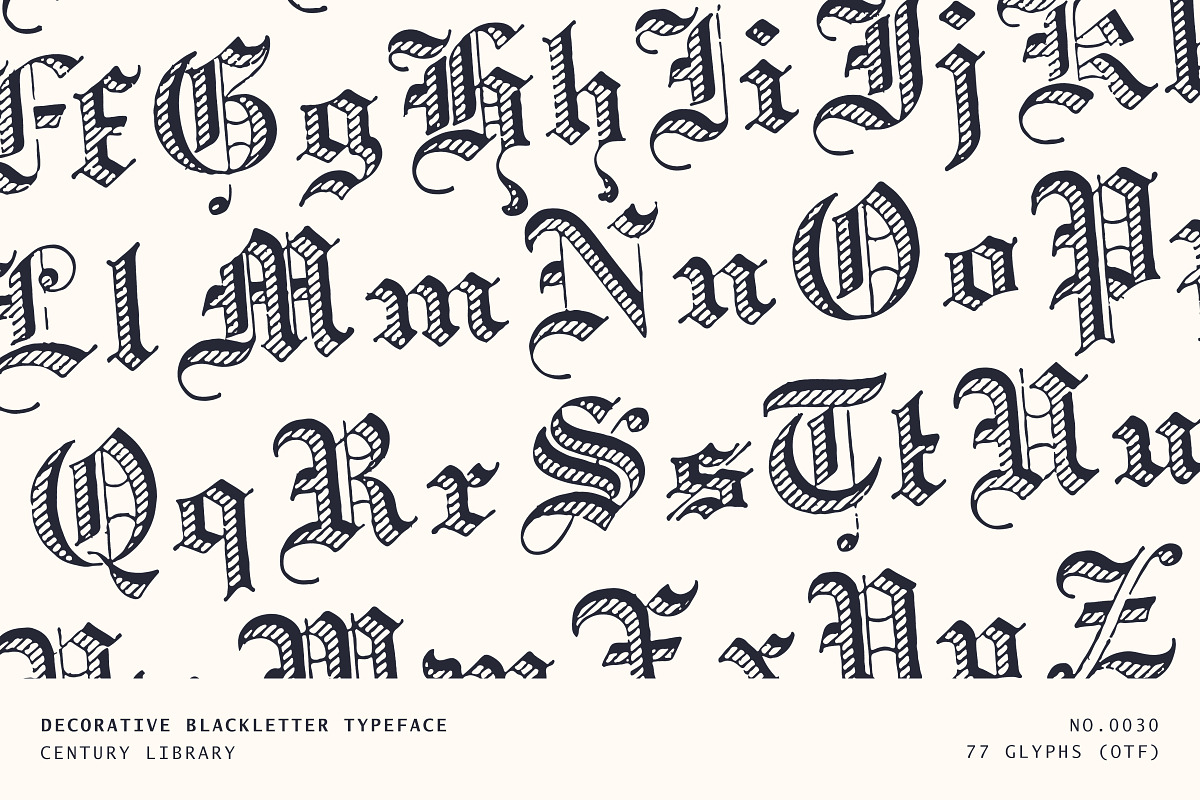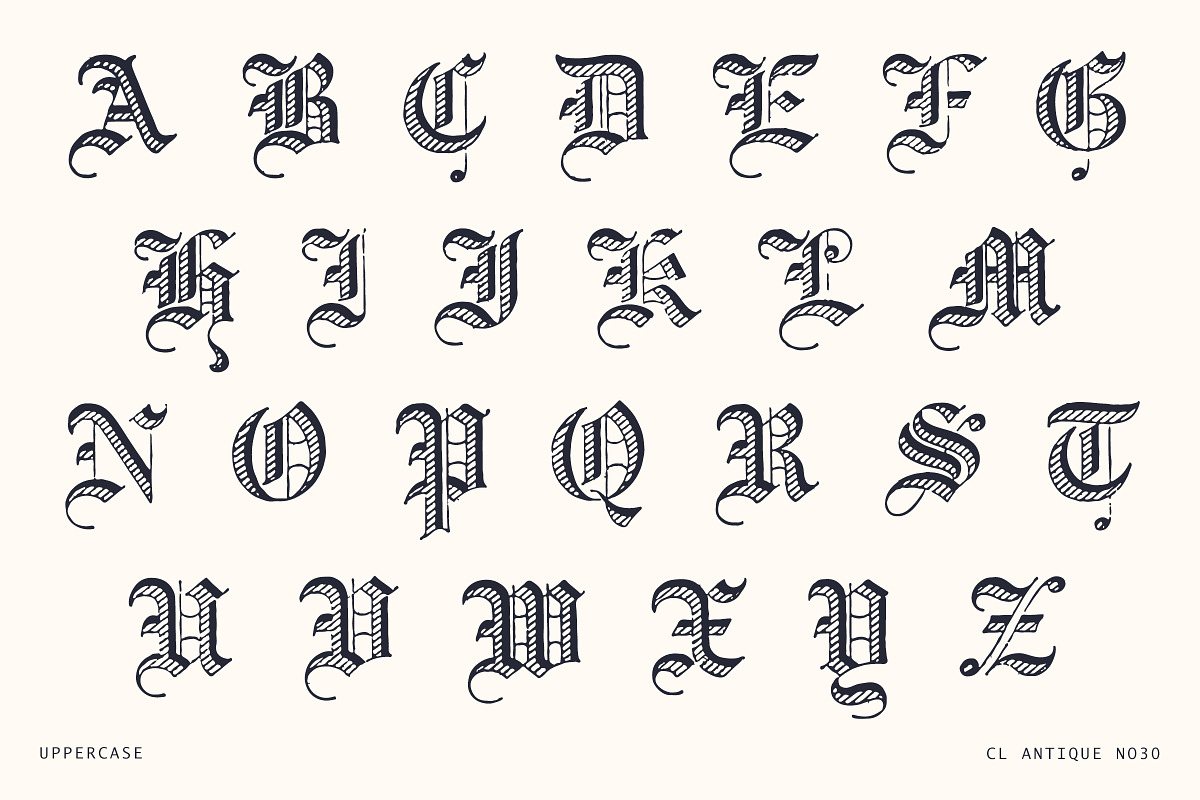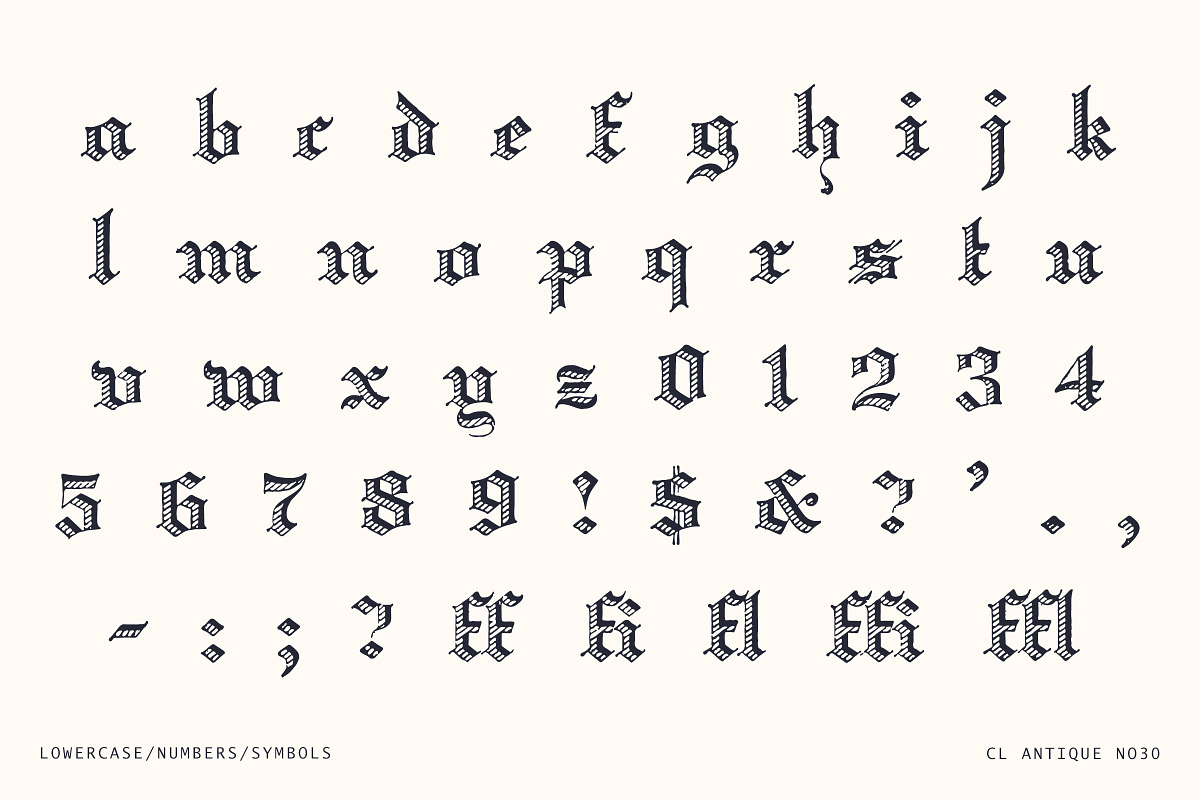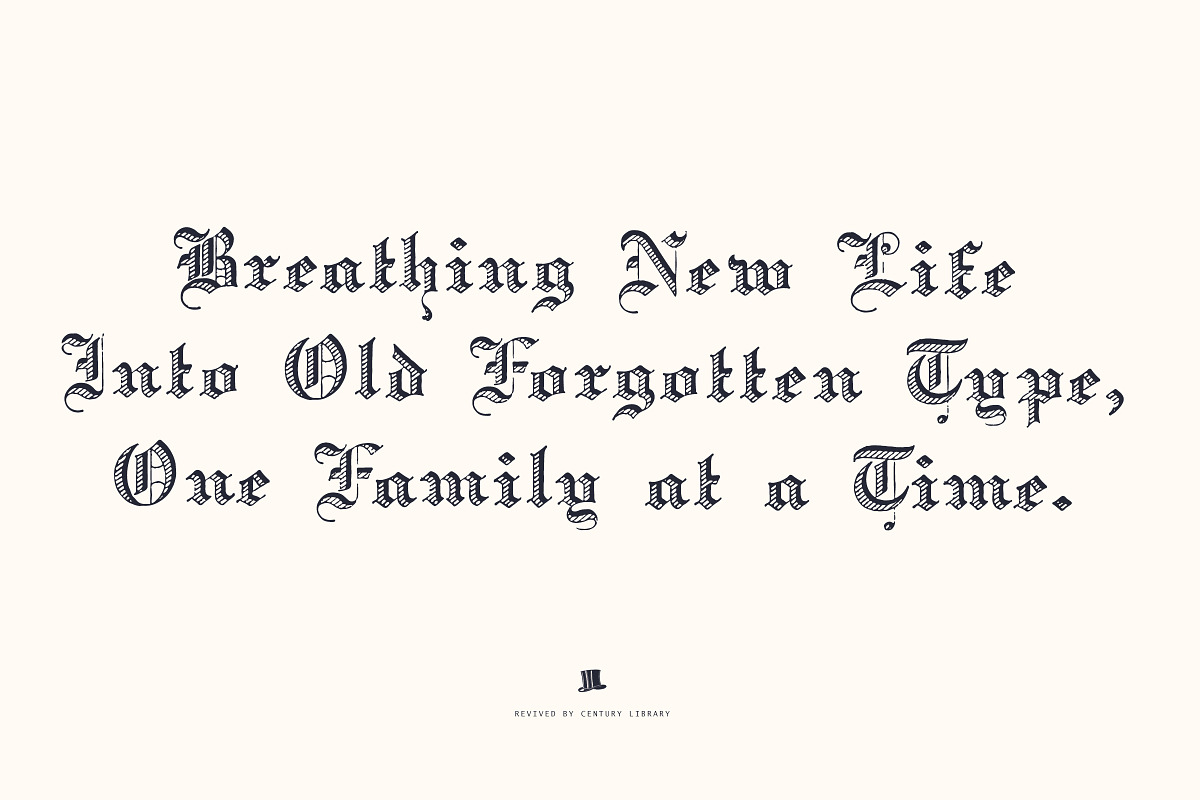
Decorative Hatched Blackletter Font
CL Antique No.30 is a decorative blackletter display font revived from a 19th-century specimen with a flair for the dramatic. It features ornate uppercase and lowercase characters with bold diagonal hatching - perfect for adding that printed-in-ink texture without actually rolling any presses.
This one's not trying to blend in. It's got a strong, angular structure with just enough flair to feel regal without being stuffy. Whether you're going for medieval, macabre, or high-end gothic, CL Antique No.30 brings authentic character and hand-restored detail to the table.
Great for logos, labels, book covers, posters, apparel design, and anything that could use a historic edge (with a bit of bite).